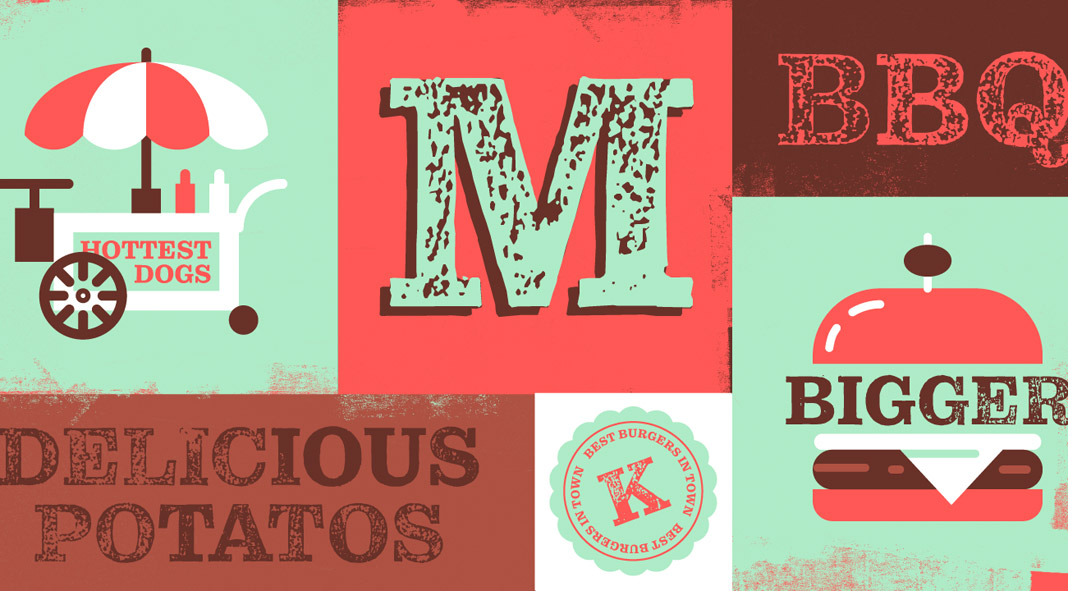
Kontiki, a handmade woodprint font family by Felix Braden.
Felix Braden, a German graphic designer and founder of Floodfonts, has created the Kontiki typeface in 2018. Based on the classic Clarendon style, Kontiki has been crafted by hand using the woodprint technique. To create this unique font family, Felix Braden manually cut all of the 193 glyphs into five wooden plates and carefully printed them by hand. After countless test prints, the most charming four versions were selected and digitized. This typeface is a great choice for designers who want to create something that looks extremely close to traditional woodprints. Kontiki is a great choice for packaging, editorial work, and corporate design. For further information on all features, just follow the link below.